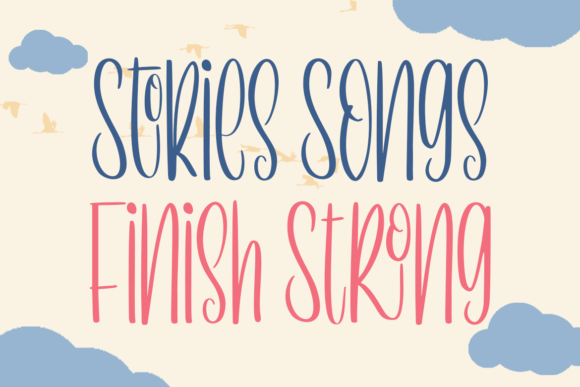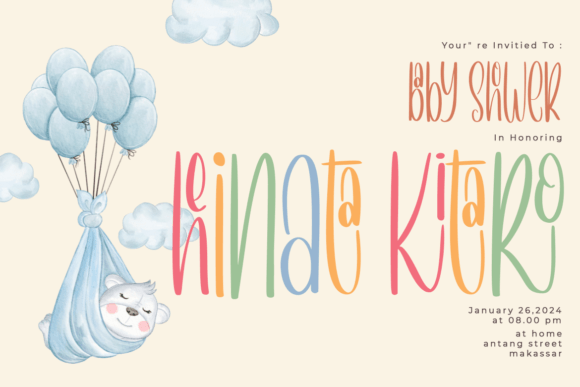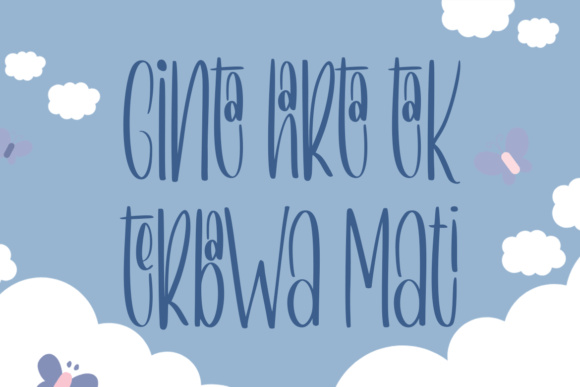
Fancy Brownies Font
Fancy Brownies is a versatile, cute, and playful handwritten font, perfect for a wide spectrum of applications such as greeting cards, headlines, and many more! Add it to any of your creative projects, and it will give them a clean and fun feel.